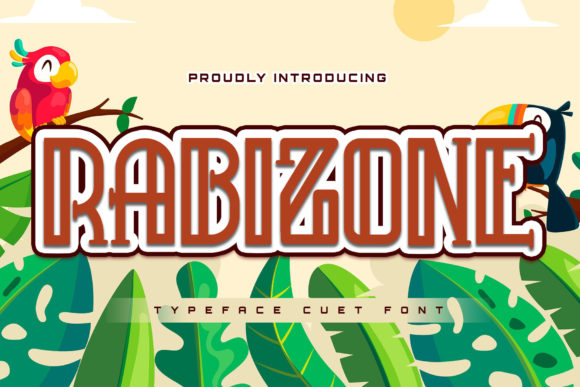
Say hello to Rabizone, the display font that radiates fun and friendliness. A creation of YanStudio, Rabizone is a delightful font that embodies playfulness and authenticity. With its captivating curves and cheerful spirit, Rabizone is the perfect choice for any children activity or school project.
Immerse yourself in a world of creativity and charm with Rabizone. Its playful personality shines through in every letterform, adding a touch of whimsy to your designs. Whether you're designing posters, flyers, or invitations for a children's party, Rabizone will infuse your creations with joy and laughter. Unleash your imagination and let Rabizone lead you on an artistic adventure.
With Rabizone, you'll discover a font that's both versatile and captivating. Its playful nature lends itself effortlessly to a variety of projects, from cheerful greeting cards to vibrant social media posts. Make a statement with Rabizone's unique charm and watch your designs come alive with personality.
Beyond its captivating appearance, Rabizone is a font that's crafted with precision and attention to detail. Its smooth curves and carefully balanced letterforms ensure readability and visual appeal across various applications. Whether you're designing for print or digital media, Rabizone will deliver clarity and impact.
As a designer, you understand the importance of creating designs that connect with your audience on an emotional level. With Rabizone, you have a font that does just that. Its playful and authentic character will resonate with your audience, leaving a lasting impression that keeps them engaged and eager for more.
Take your designs to new heights of creativity and joy with Rabizone. Embrace the playful spirit of this display font and watch your creations transform into captivating expressions of imagination. Let Rabizone be your artistic companion and embark on a journey where fun and professionalism converge.